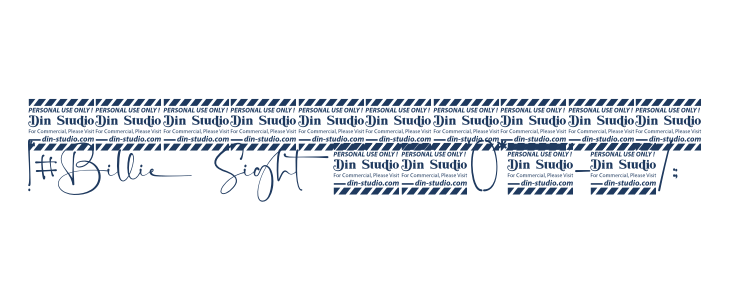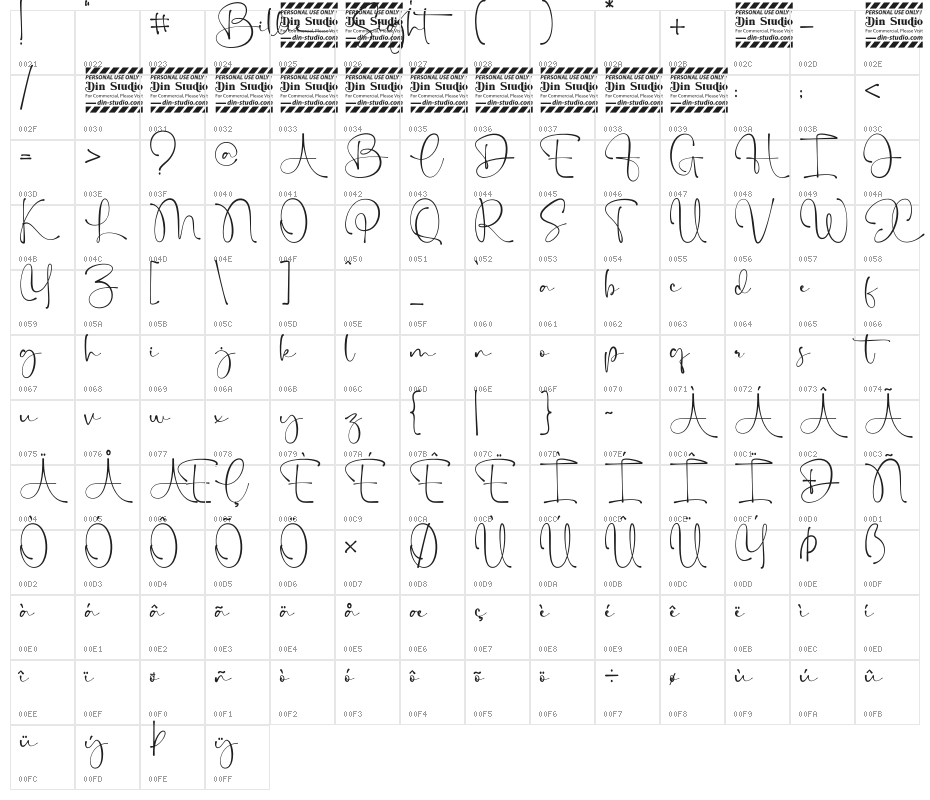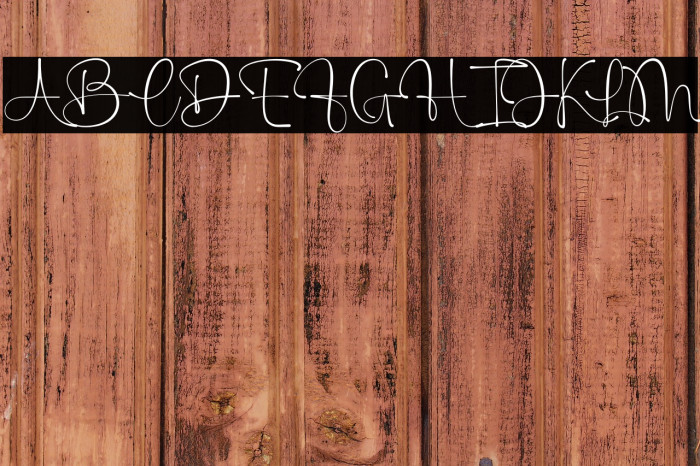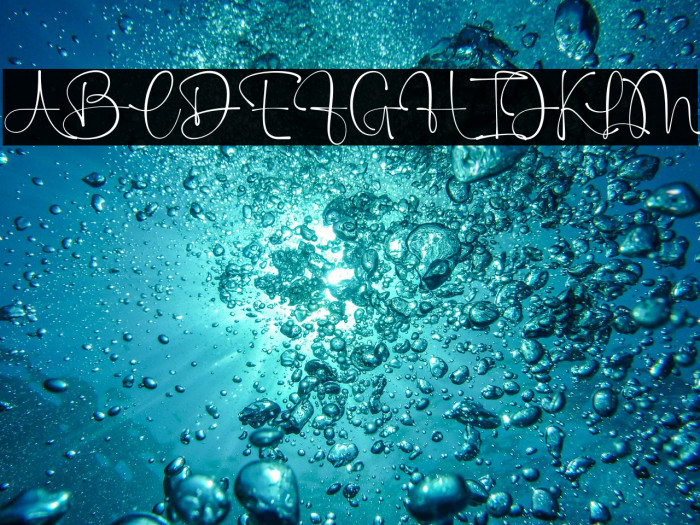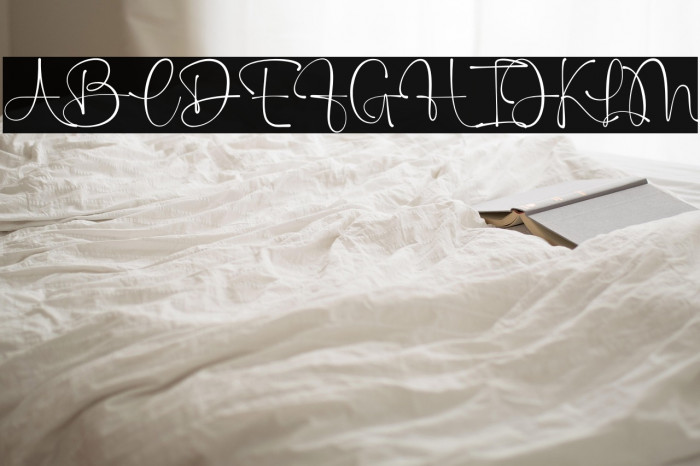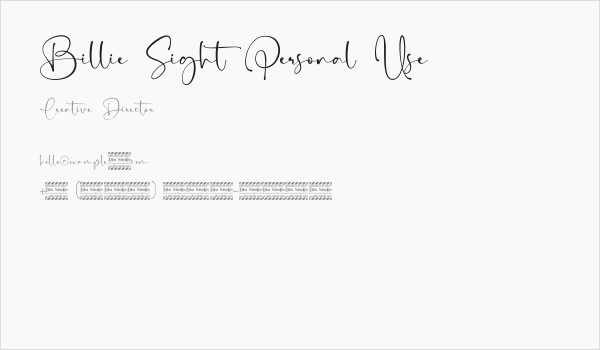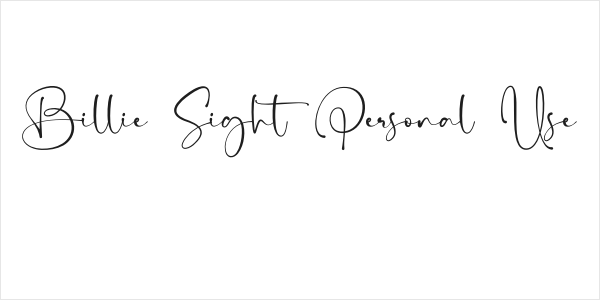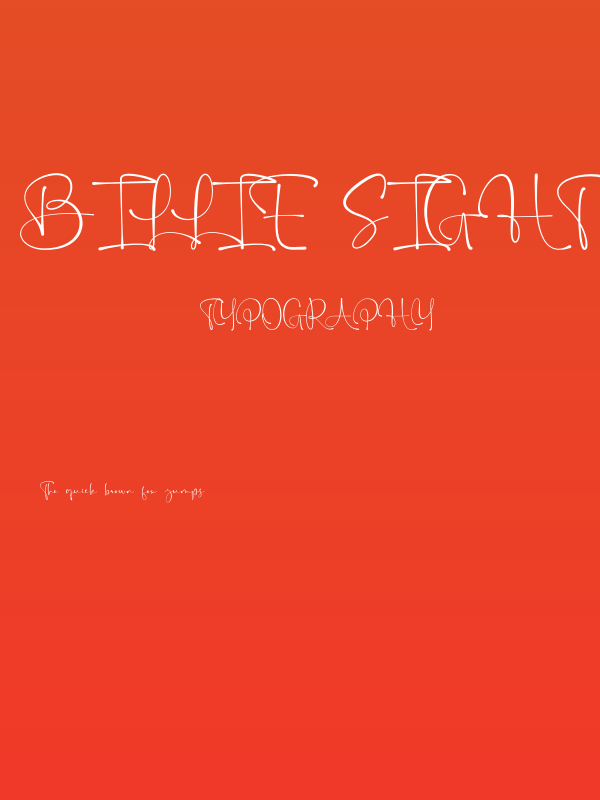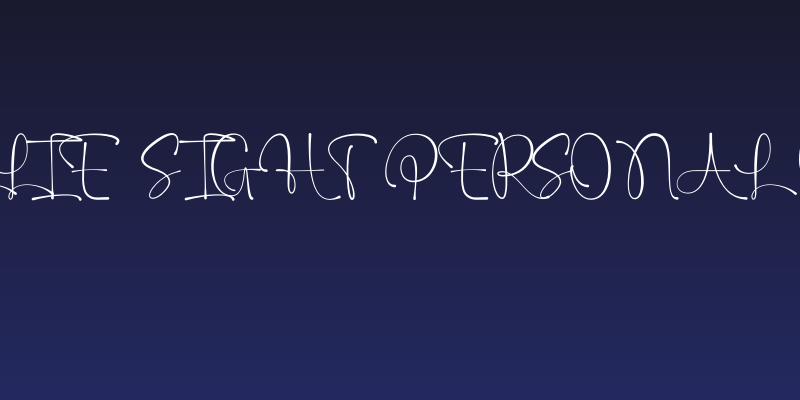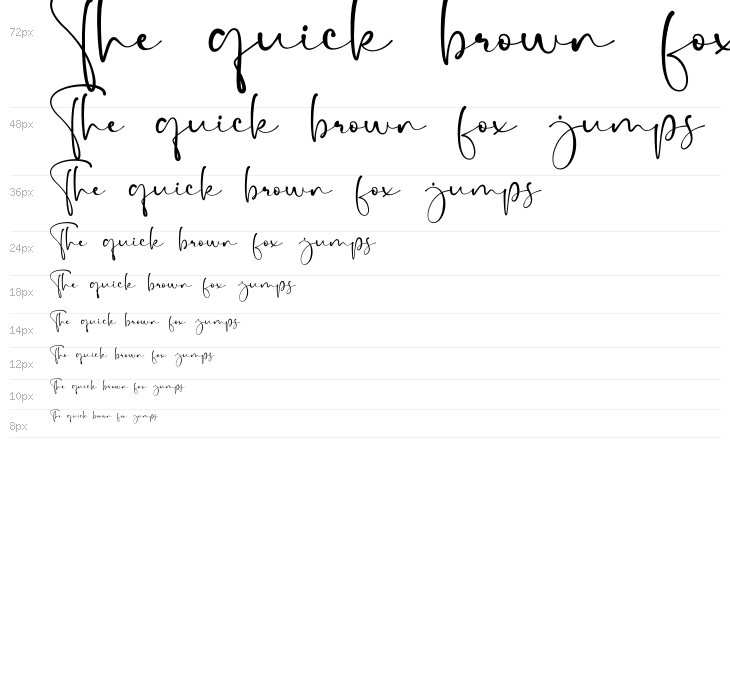
Billie Sight Personal Use Font
Billie Sight Personal Use Description
This font features an elegant, flowing script style with a handwritten appearance. The characters are connected, creating a seamless and fluid look. The uppercase letters are ornate with loops and swirls, while the lowercase letters maintain a consistent, cursive style. The font exudes a sense of sophistication and grace, making it ideal for projects that require a personal touch. The overall design is balanced, with a medium contrast in stroke thickness, giving it a refined yet approachable feel.
| Overall Style | Elegant, Handwritten |